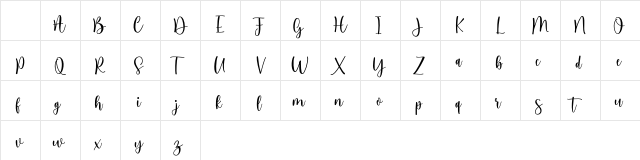
Complete Testimoney Free Regular glyph index. Displaying only characters natively supported by Testimoney Free Regular font.
Testimoney Free is a composed and adaptable typeface that performs quietly and consistently across a wide range of design contexts.
Who designed the Testimoney Free Regular font?